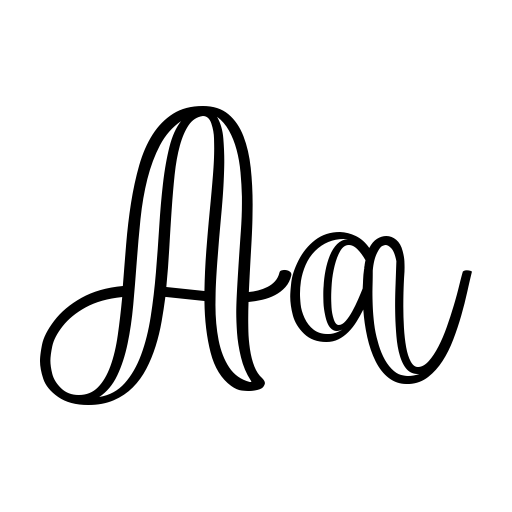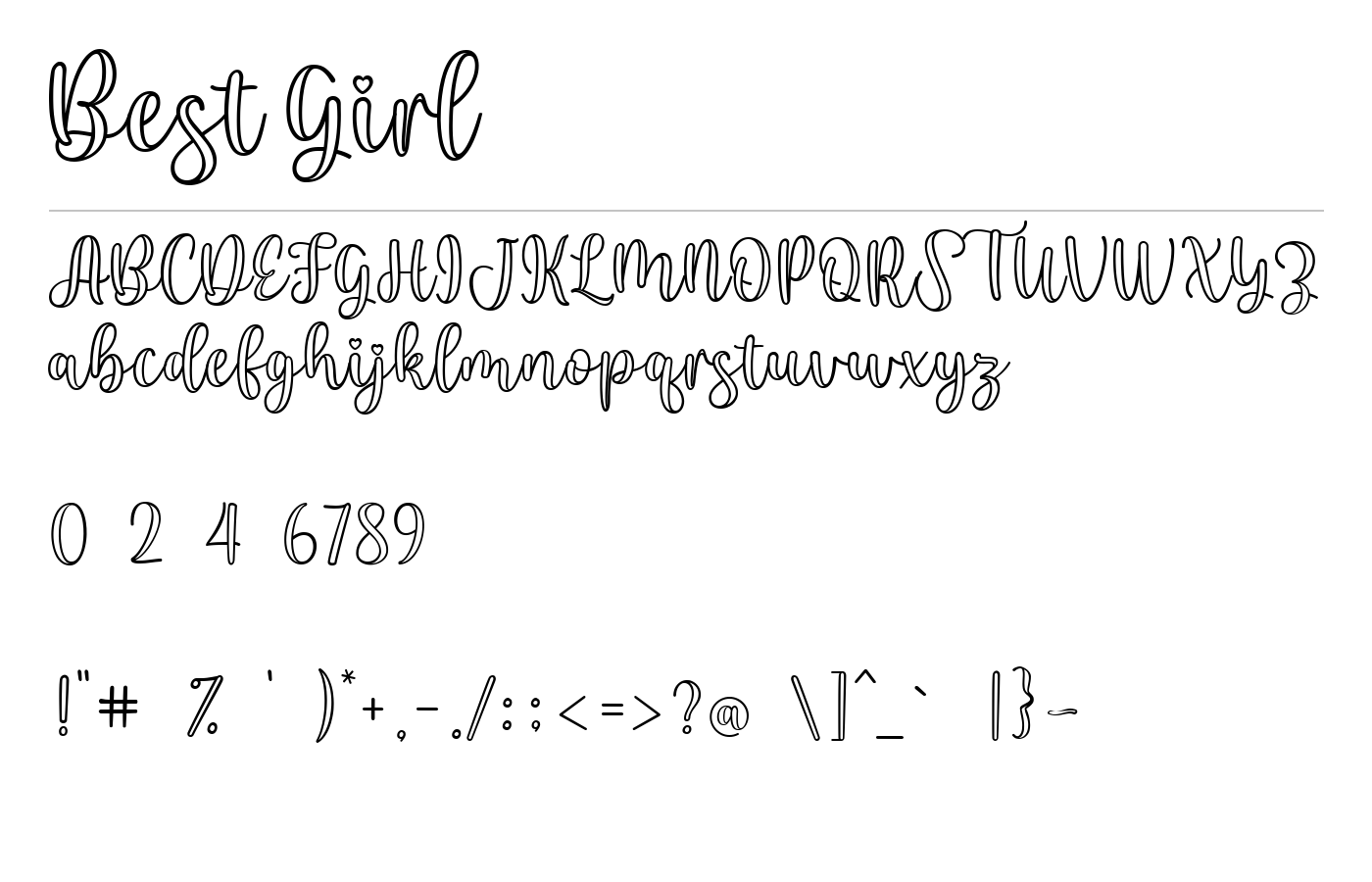
Best Girl is a charming and playful script font with delicate, flowing lines and whimsical heart-shaped details that convey a friendly and feminine vibe. Its light weight and elegant cursive style make it ideal for creative branding, invitations, or any design needing a touch of warmth and personality. This font shines in projects where a casual yet stylish handwritten look is desired.
Best Girl Font
About Best Girl Font
| Font family | Best Girl Font |
| Designer | Muammar Kadafi |